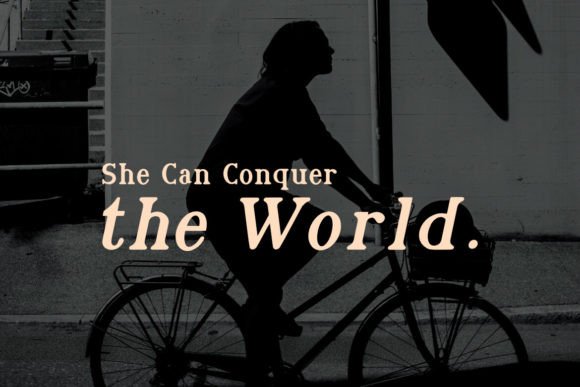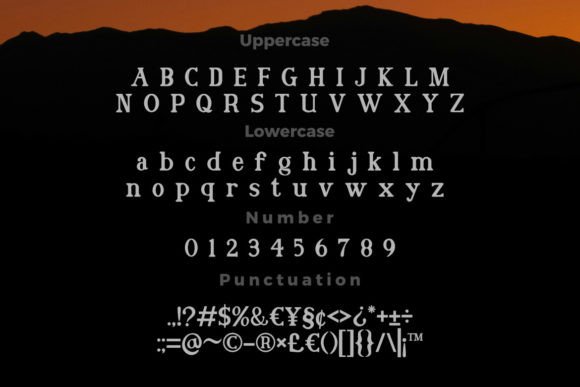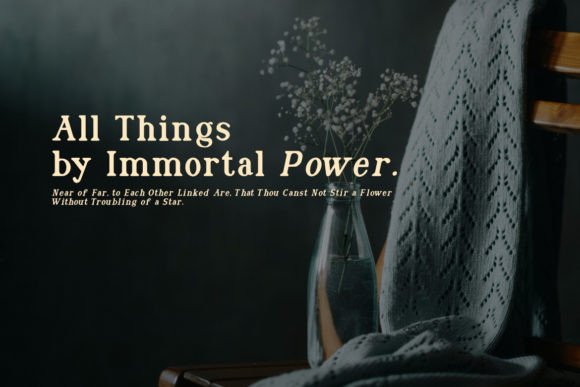
Discover the Elegance of Aprilia Kupril Font
In the world of typography, fonts play a crucial role in conveying messages, expressing emotions, and creating a lasting impression. For designers and crafters, finding the perfect font that combines elegance with modernity can be a daunting task. However, if you’re looking for a refined serif font that exudes sophistication, look no further than Aprilia Kupril. In this article, we’ll explore the features, benefits, and uses of Aprilia Kupril, and why it’s an excellent choice for your next design project.
What is Aprilia Kupril?
Aprilia Kupril is a serif font that seamlessly blends classic elegance with modern sophistication. Its sleek lines, balanced proportions, and refined details make it an ideal choice for designs that require a touch of luxury and refinement. Whether you’re working on editorial design, branding, or upscale invitations, Aprilia Kupril is sure to impress.
Key Features of Aprilia Kupril
- Refined Serif Design: Aprilia Kupril boasts a classic serif design with a modern twist, making it perfect for designs that require a touch of elegance.
- Sleek Lines and Balanced Proportions: The font’s sleek lines and balanced proportions create a sense of harmony and sophistication, making it ideal for editorial design, branding, and upscale invitations.
- Timeless Appeal: Aprilia Kupril’s timeless design ensures that your typographic project will remain relevant and stylish for years to come.
Benefits of Using Aprilia Kupril
So, why choose Aprilia Kupril for your design project? Here are some benefits of using this elegant serif font:
- Elevate Your Design: Aprilia Kupril adds a touch of sophistication and elegance to any design project, making it perfect for high-end brands, luxury products, and upscale events.
- Versatility: The font’s versatility makes it suitable for a wide range of design applications, from editorial design and branding to invitations and packaging.
- Easy to Read: Aprilia Kupril’s clear and balanced design ensures that your text is easy to read, making it perfect for body text and headlines.
Uses of Aprilia Kupril
Aprilia Kupril is an excellent choice for various design projects, including:
- Editorial Design: Use Aprilia Kupril for magazine and newspaper layouts, book titles, and article headings to add a touch of elegance and sophistication.
- Branding: Aprilia Kupril is perfect for luxury brands, high-end products, and upscale services, helping to create a sophisticated and refined brand image.
- Upscale Invitations: Make a lasting impression with Aprilia Kupril on your wedding invitations, event invitations, or formal announcements.
Tips for Using Aprilia Kupril
To get the most out of Aprilia Kupril, here are some tips to keep in mind:
- Pair with Other Fonts: Combine Aprilia Kupril with other fonts to create a unique and visually appealing typography.
- Experiment with Sizes: Play with different font sizes to create a hierarchy of information and add visual interest to your design.
- Pay Attention to Kerning: Adjust the kerning to ensure that your text is evenly spaced and visually appealing.
Aprilia Kupril is a refined serif font that offers a perfect blend of elegance and modernity. Its sleek lines, balanced proportions, and timeless appeal make it an excellent choice for designers and crafters looking to add a touch of sophistication to their typographic projects. Whether you’re working on editorial design, branding, or upscale invitations, Aprilia Kupril is sure to impress. So, why not give it a try and experience the elegance of Aprilia Kupril for yourself?